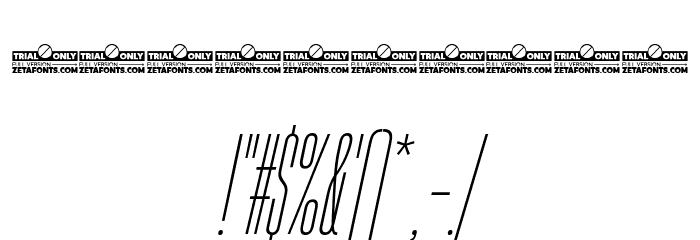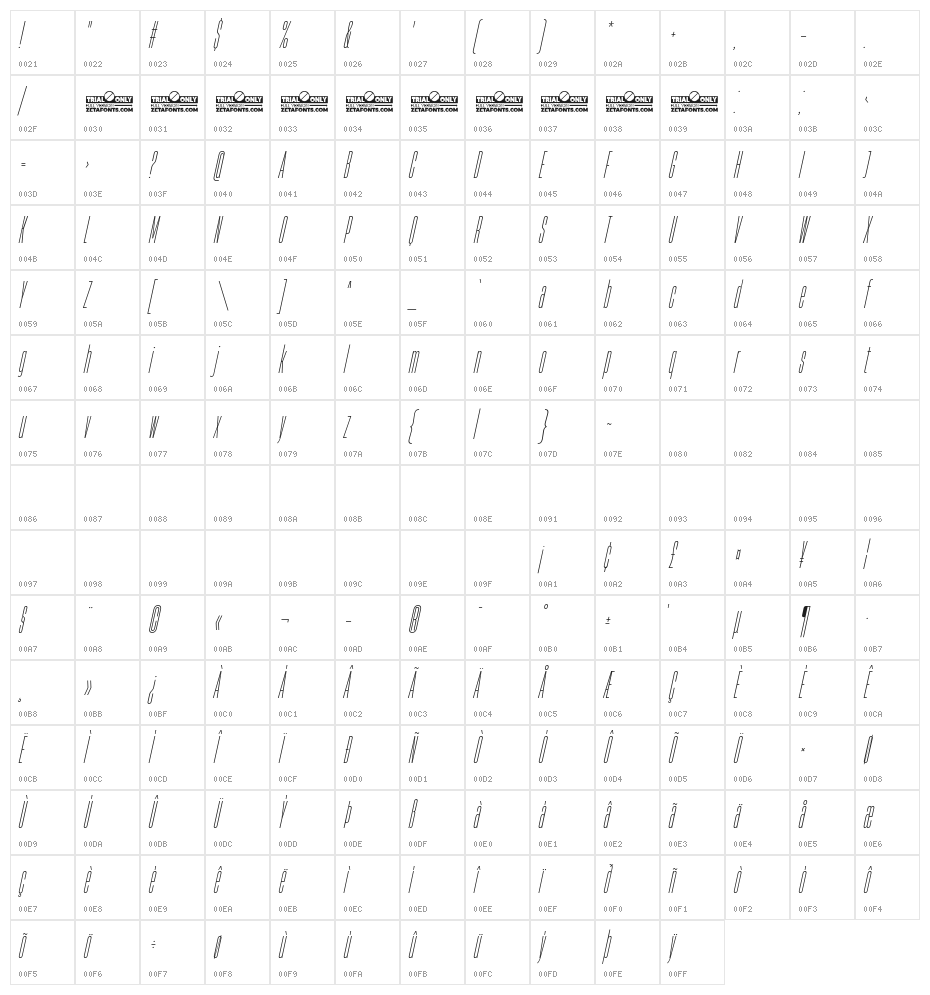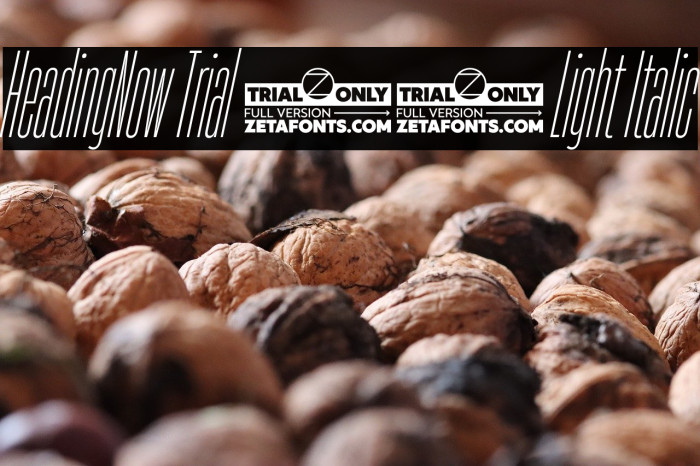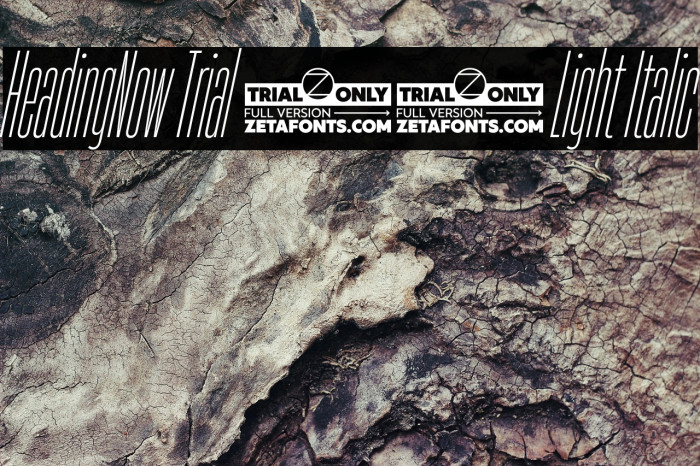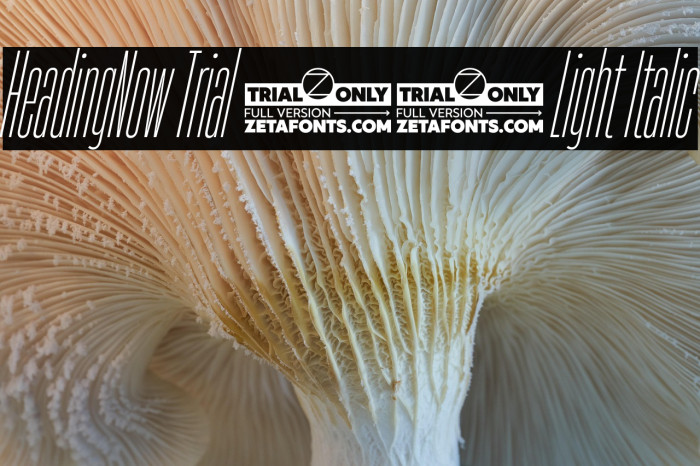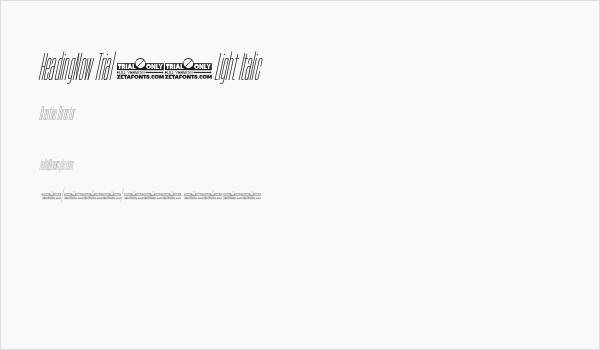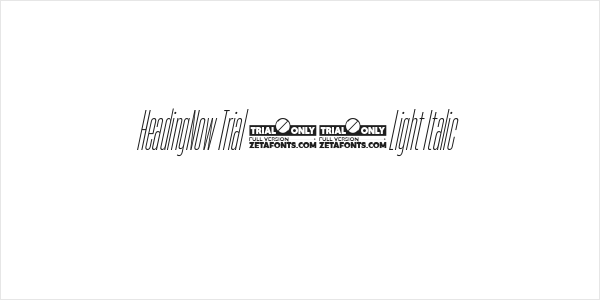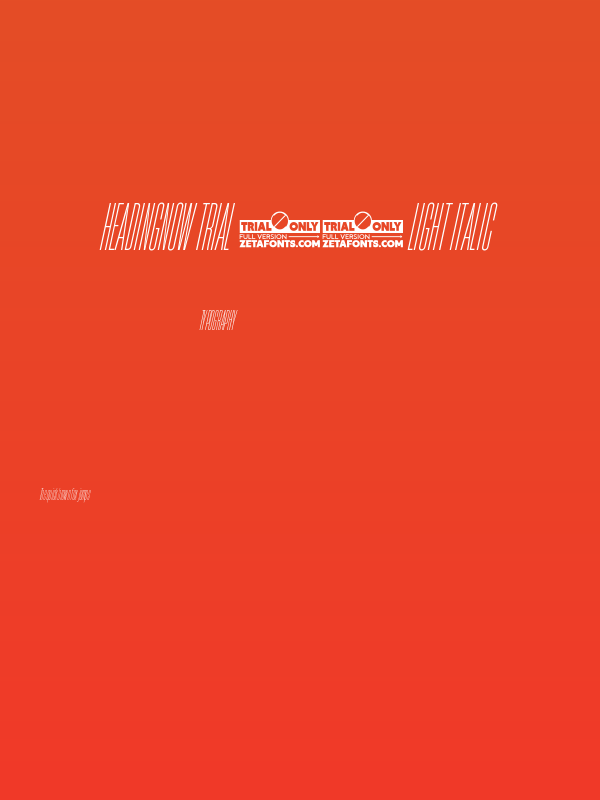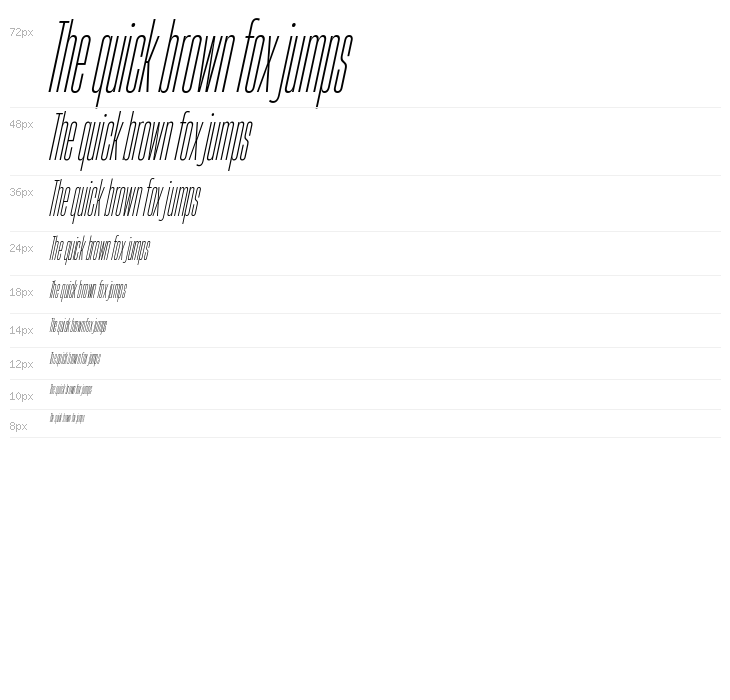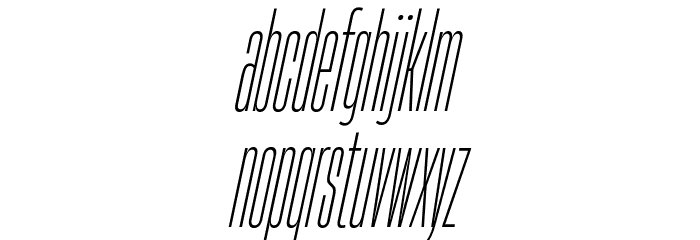
HeadingNow Trial 02 Light Italic Font
HeadingNow Trial 02 Light Italic Description
This font features a sleek and modern design with elongated, narrow letterforms that convey a sense of elegance and sophistication. The italic style adds a dynamic and fluid appearance, enhancing its contemporary feel. Each character is meticulously crafted with a consistent stroke width, contributing to its light and airy aesthetic. The font's clean lines and minimalistic approach make it suitable for a variety of design applications, offering versatility while maintaining a distinct personality.
| Proposed Projects | Ideal for fashion magazines, luxury branding, modern websites, and elegant invitations. |